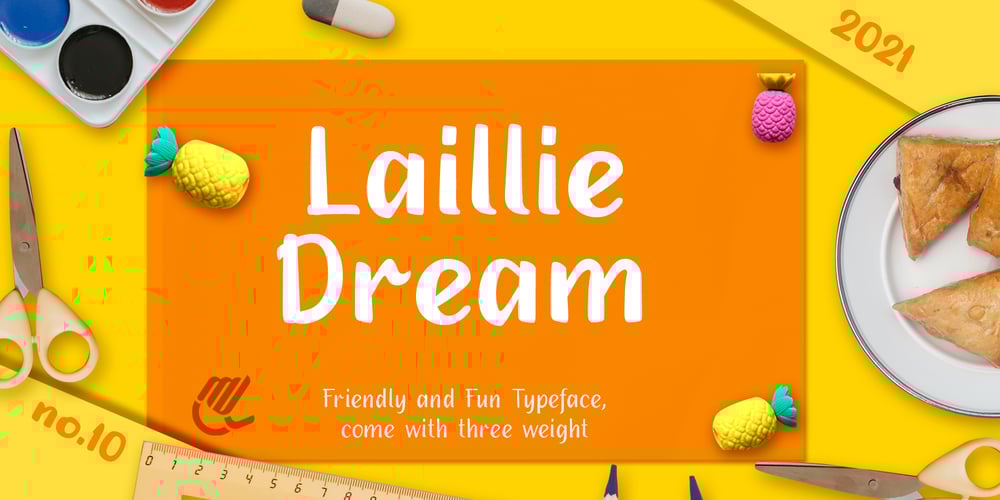
Laillie Dream
Laillie Dream font
Laillie Dream Font Family was designed by Ahmad Ja’far Shadiq and published by Midvel. Laillie Dream contains 3 styles and family package options. This is our new font, Laillie Dream is playful handwritten typeface.Laillie Dream comes with three weight, include uppercase, lowercase, number, punctuation, multilingual. This font is suitable to design especially poster, logo, book cover, greeting card, quotes, advertising poster, and anymore